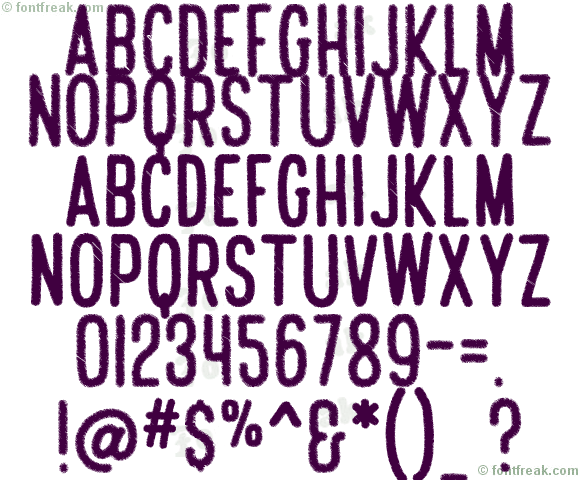
Café Françoise
About Café Françoise
Café Françoise is a captivating display font designed by Sharkshock in 2016, and it's available for free download under a freeware license. This unique typeface falls into the decorative category, characterized by its playful and charming design that embodies a casual yet sophisticated aesthetic. The font features a medium stroke weight with slight contrast, giving it a robust appearance while maintaining legibility. The letterforms are well-spaced, allowing for easy reading, making it ideal for various creative applications.
Visually, Café Françoise is defined by its slightly rounded edges and a whimsical flair that adds a touch of warmth. Decorative elements, such as the unique serif-like finishes on some characters, enhance its artistic appeal, making it stand out among other fonts. This combination of features makes the font suitable for a variety of use cases, particularly in the realms of hospitality and lifestyle branding. It is perfect for restaurant menus, where its inviting style can draw in customers. Additionally, it can be effectively used in wedding invitations, giving them a personal touch, or in movie posters to convey a light-hearted theme. Graphic designers and small business owners will find this font particularly appealing for branding projects, as it communicates creativity and approachability.